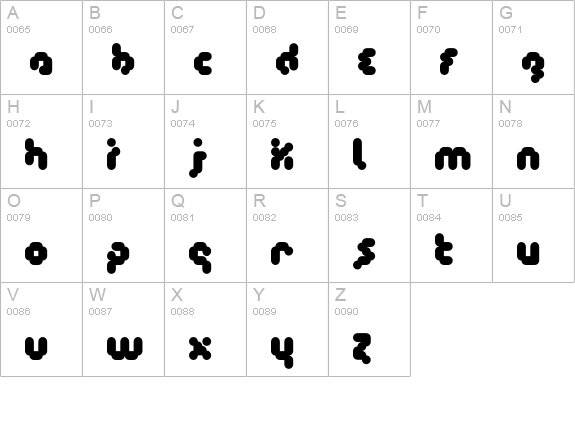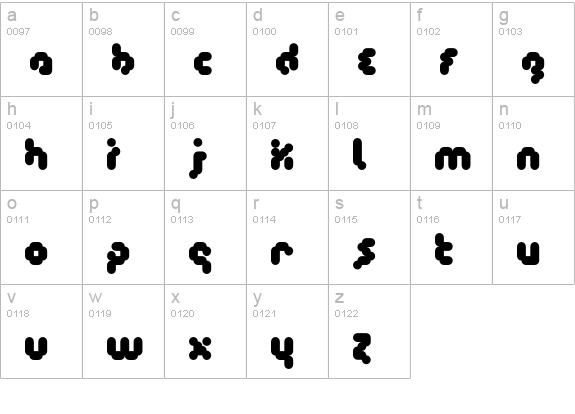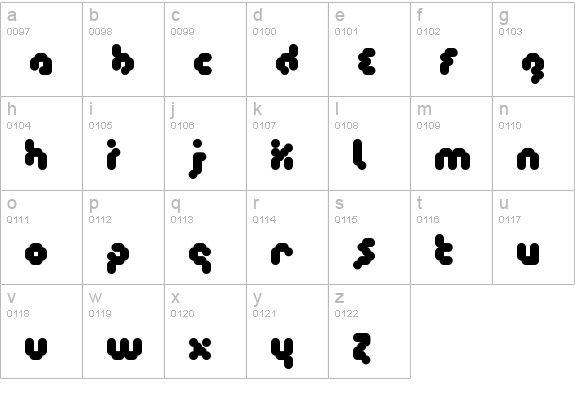
Timecode Font Details
Introducing Timecode font, the perfect blend of style and functionality. This unique font is designed to add a touch of elegance and modernity to your designs. With its sleek and minimalistic design, Timecode font is sure to captivate your audience and make a lasting impression. But what sets Timecode font apart from the rest? Well, it's not just its stunning aesthetics, but also the fact that it is absolutely free! That's right, this remarkable font can be freely downloaded at FontsMarket.com. No need to break the bank or compromise on quality - Timecode font offers you the best of both worlds. Whether you're working on a professional project, designing a logo, or simply want to enhance your personal creations, Timecode font is the perfect choice. Its clean lines and versatile nature make it suitable for a wide range of applications, from digital designs to print media. With Timecode font, you can effortlessly convey a sense of sophistication and modernity. Its timeless design ensures that your work will remain relevant and visually appealing for years to come. Say goodbye to outdated and dull fonts - Timecode font is here to elevate your designs to a whole new level. So why wait? Download Timecode font today and let your creativity flourish. Experience the freedom of having a high-quality font at your fingertips, ready to bring your designs to life. Don't miss out on this incredible opportunity to enhance your work with a font that is both visually stunning and freely available. Visit FontsMarket.com now and unlock the potential of Timecode font.